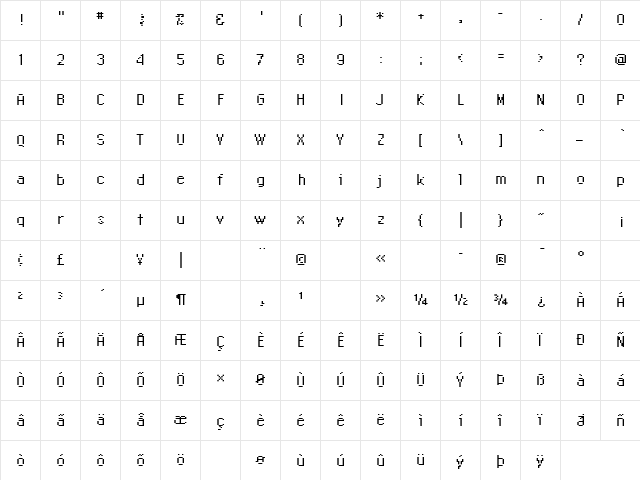
UniversalEight Regular
Design Context for UniversalEight Typeface
UniversalEight is a composed and adaptable typeface that performs quietly and consistently across a wide range of design contexts.
Pro Tip: Use UniversalEight in both headline and body roles to test its range before committing to a single application.